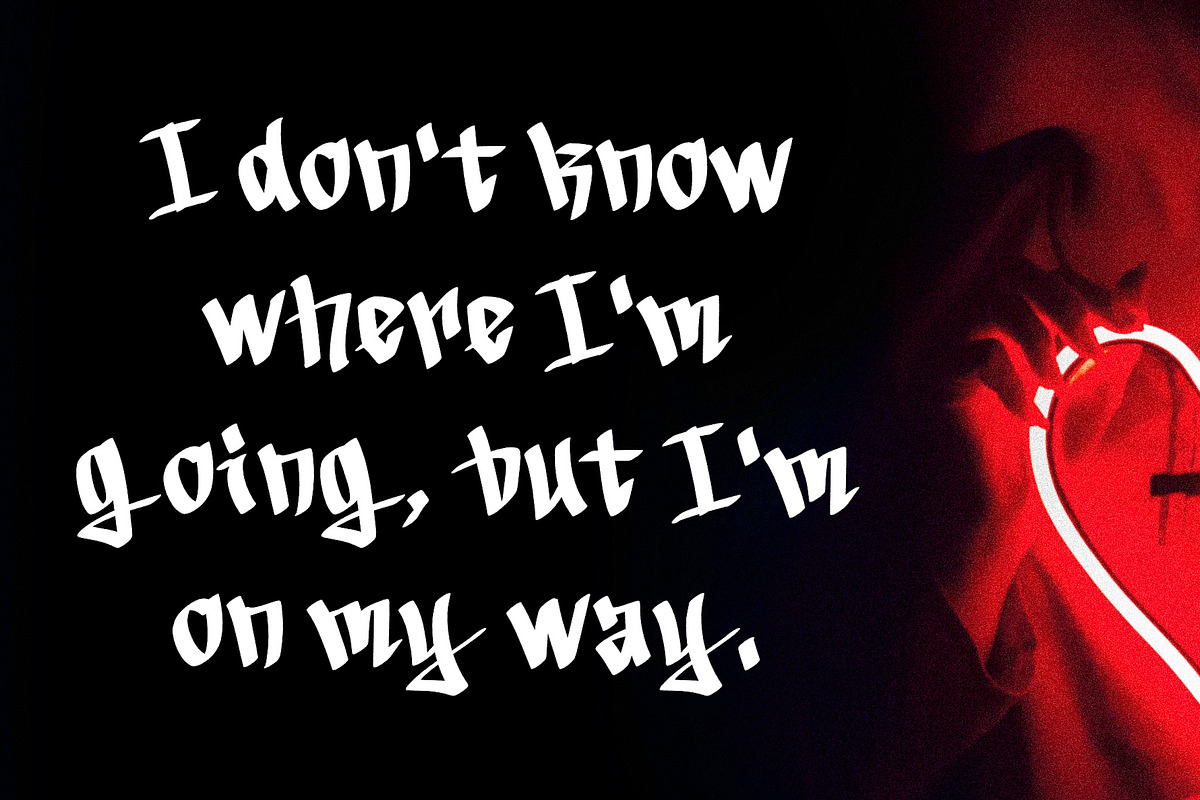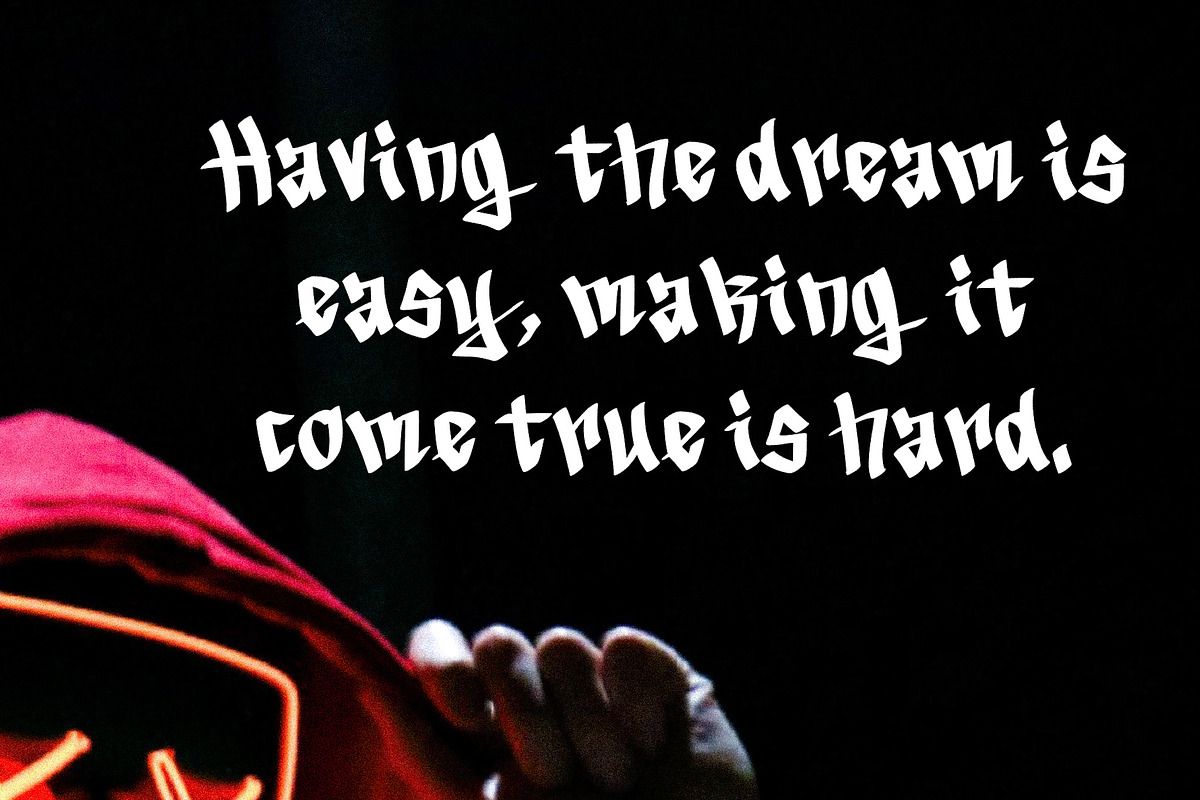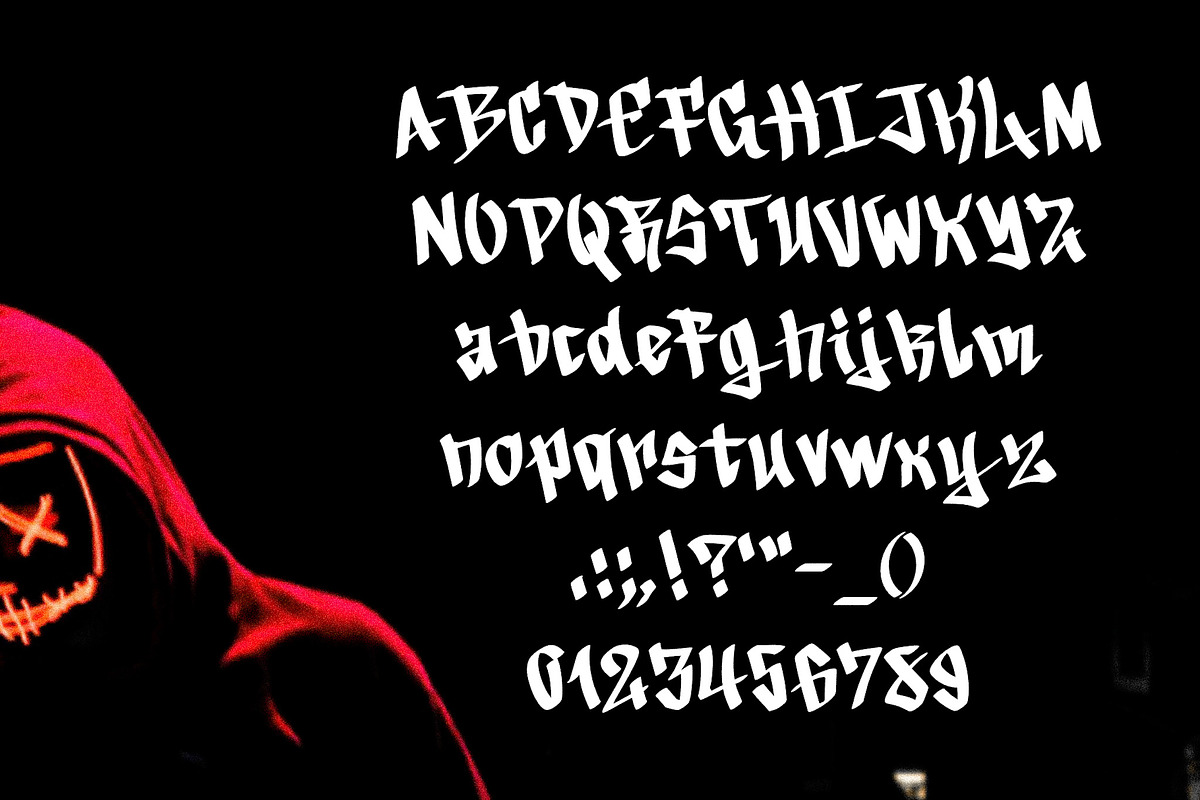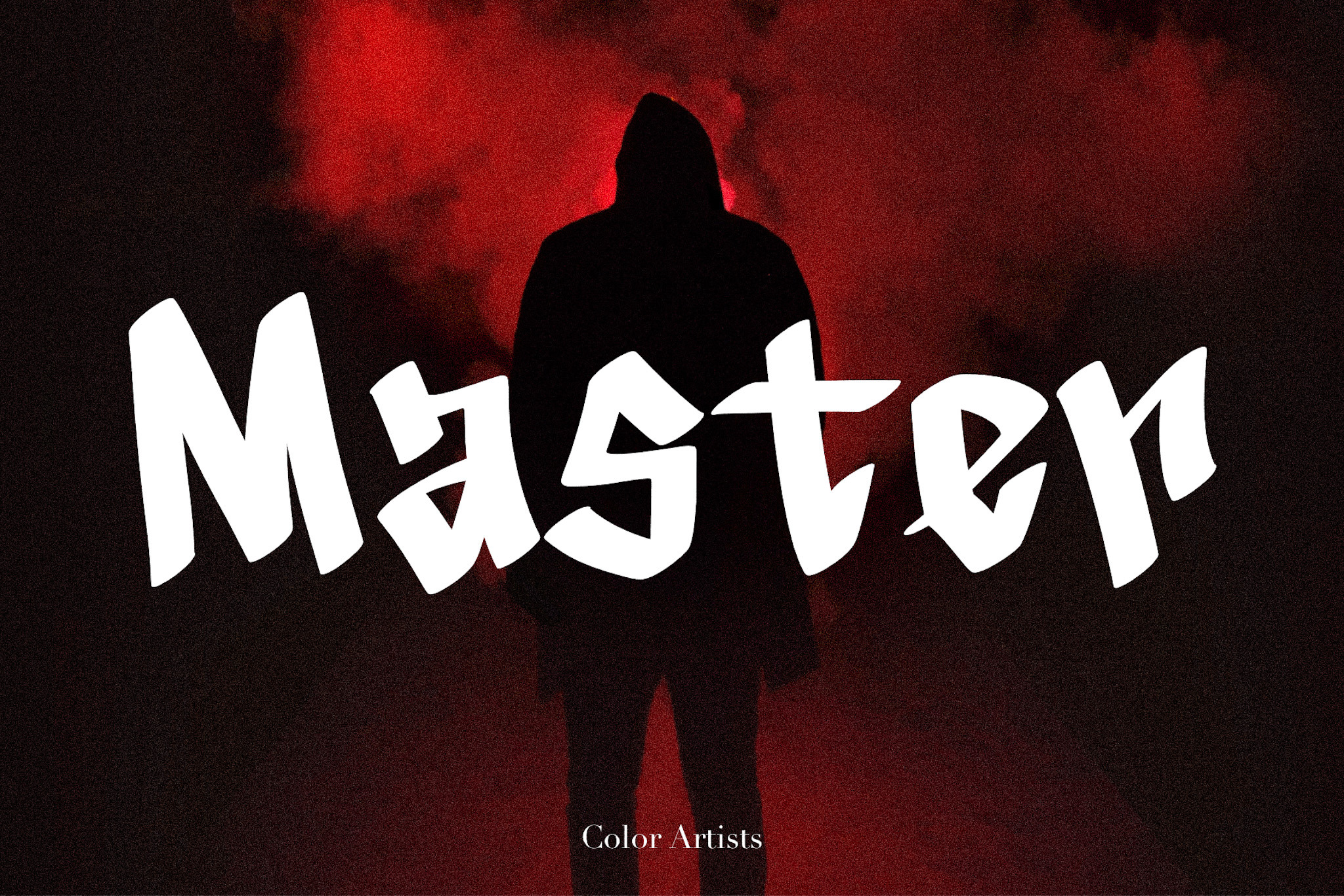
Master-Y2K FONT
Introducing the Master font - the font that adds a cool factor to your designs! Are you tired of using the same old boring fonts in your designs? Do you want to create something that's unique, edgy, and unforgettable? Look no further than the Master font! Master is a cool and versatile font that will add a touch of attitude to any project. Whether you're designing a music album cover, creating a streetwear brand logo, or crafting a poster for a local event.